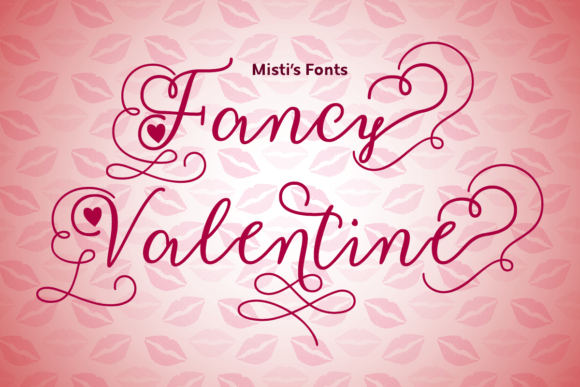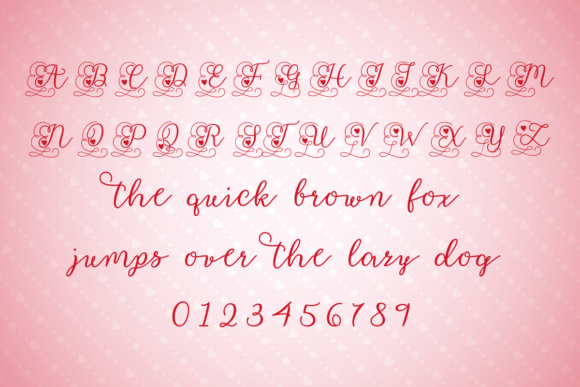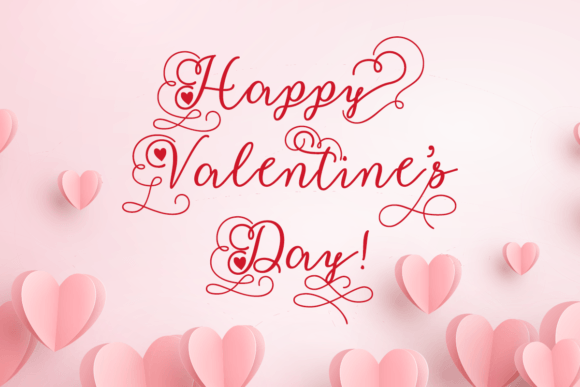
Fancy Valentine Font
About the Fancy Valentine Font
Add a touch of class to your work with the Fancy Valentine Font, a truly exceptional typeface. Fancy Valentine is a lovely calligraphy typeface perfect for adding charm to your love-themed projects. Create elegant greeting cards, personalized V-day gifts, stunning products, and more!
Its elegant, slightly playful style makes it ideal for headlines, short text blocks on invitations or packaging, and branding elements requiring a touch of romance. However, its decorative nature makes it unsuitable for body copy or UI elements where readability is paramount. Avoid using it for large amounts of text.
Consider pairing Fancy Valentine with a clean sans-serif like Montserrat for a balanced contrast, or a delicate serif such as Lora for a cohesive, romantic feel. For a more modern take, a geometric sans-serif like Futura would provide a striking juxtaposition.
The font exudes a sophisticated yet approachable personality, best suited for brands focused on luxury goods, artisanal products, or special events. Its charm is best utilized in applications where visual impact and emotional resonance are key.
Fancy Valentine Font Usage Examples
Fancy Valentine Font Example